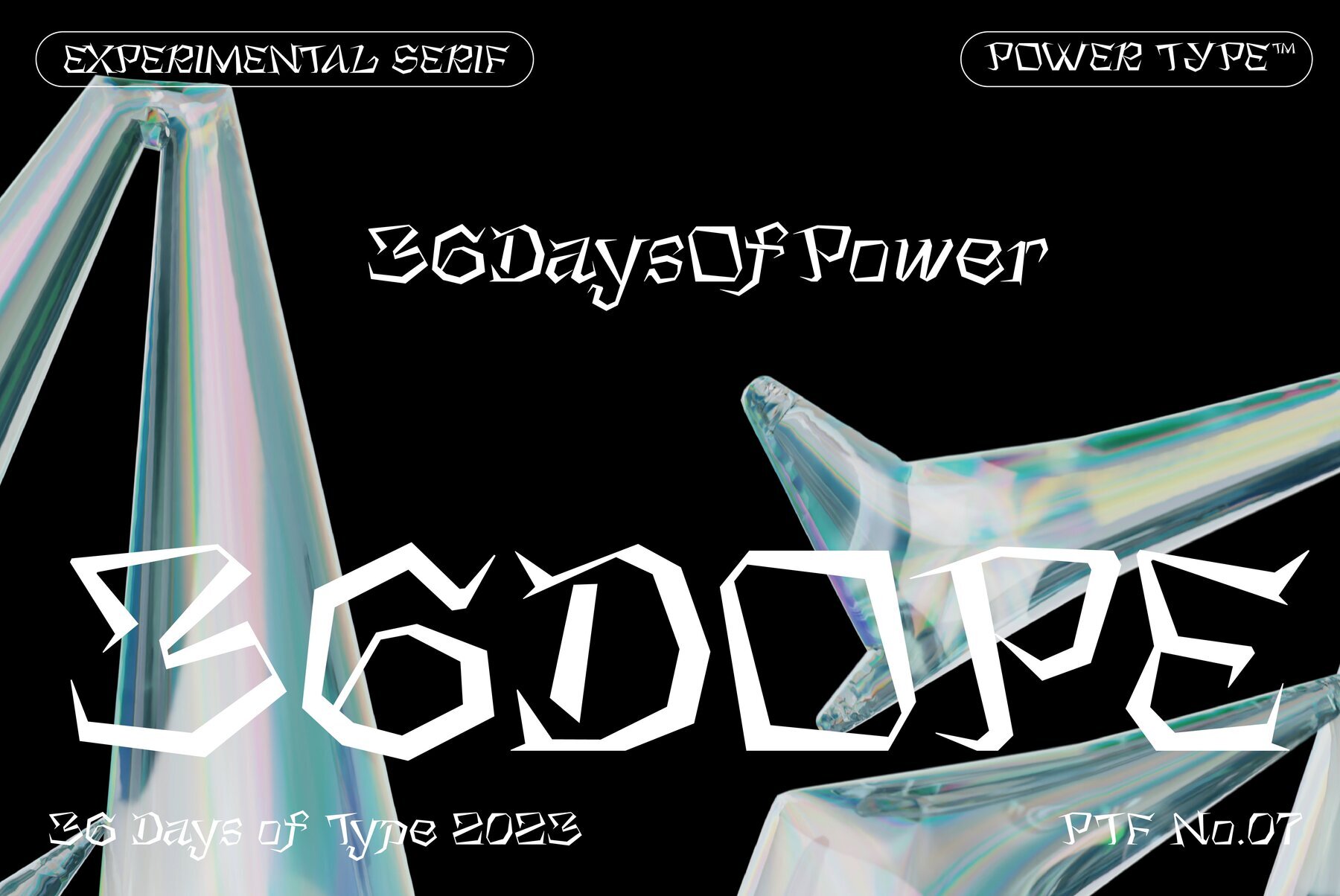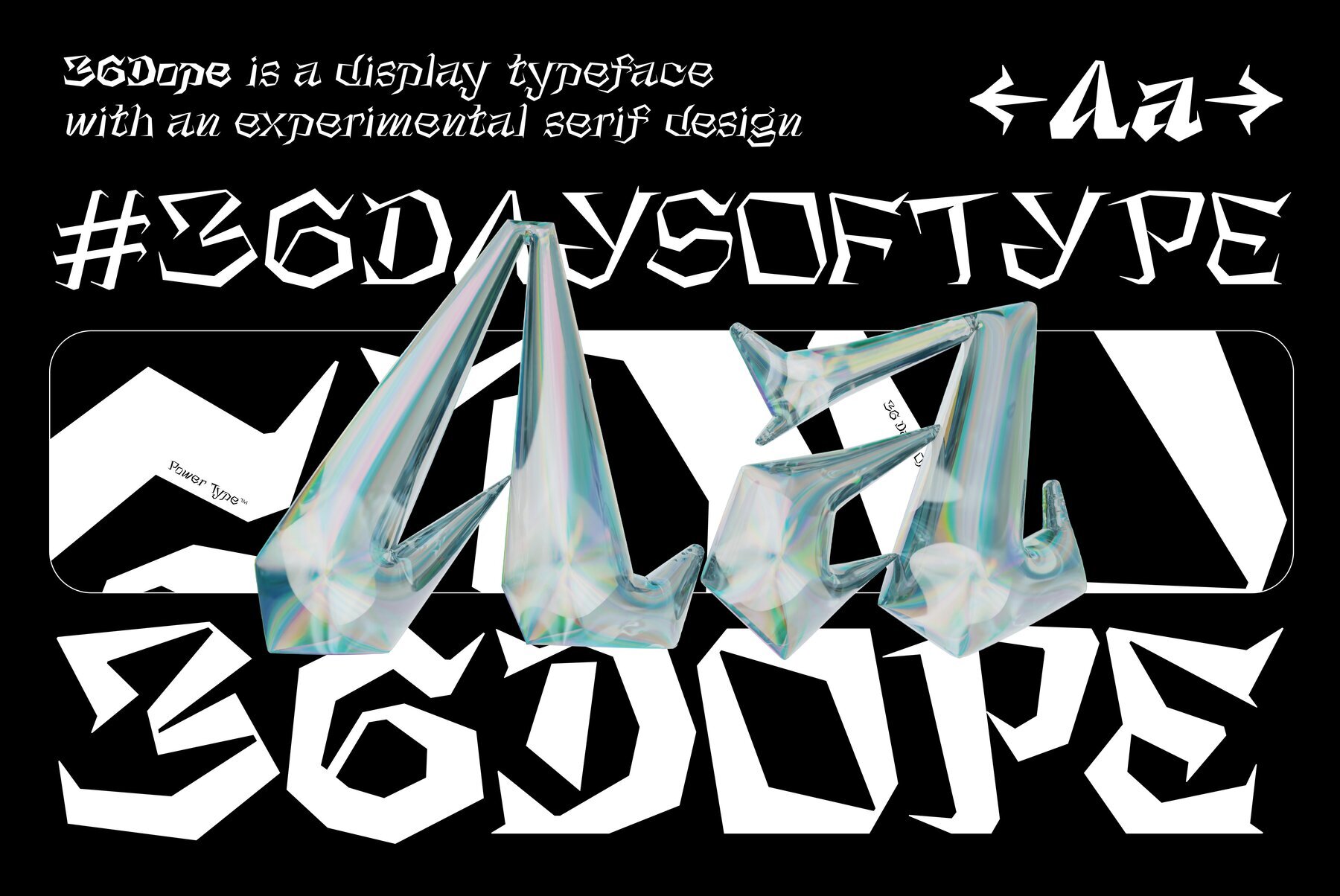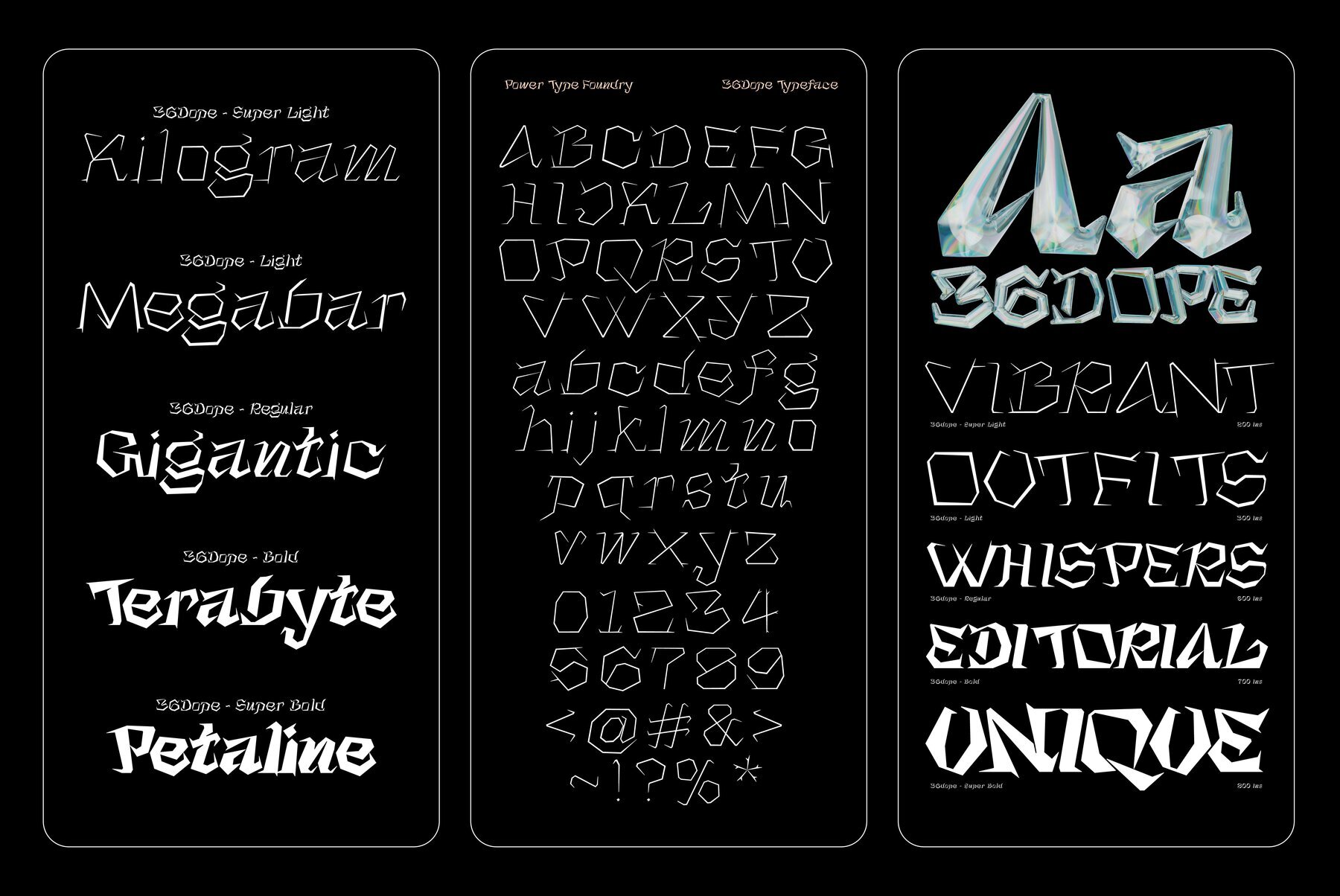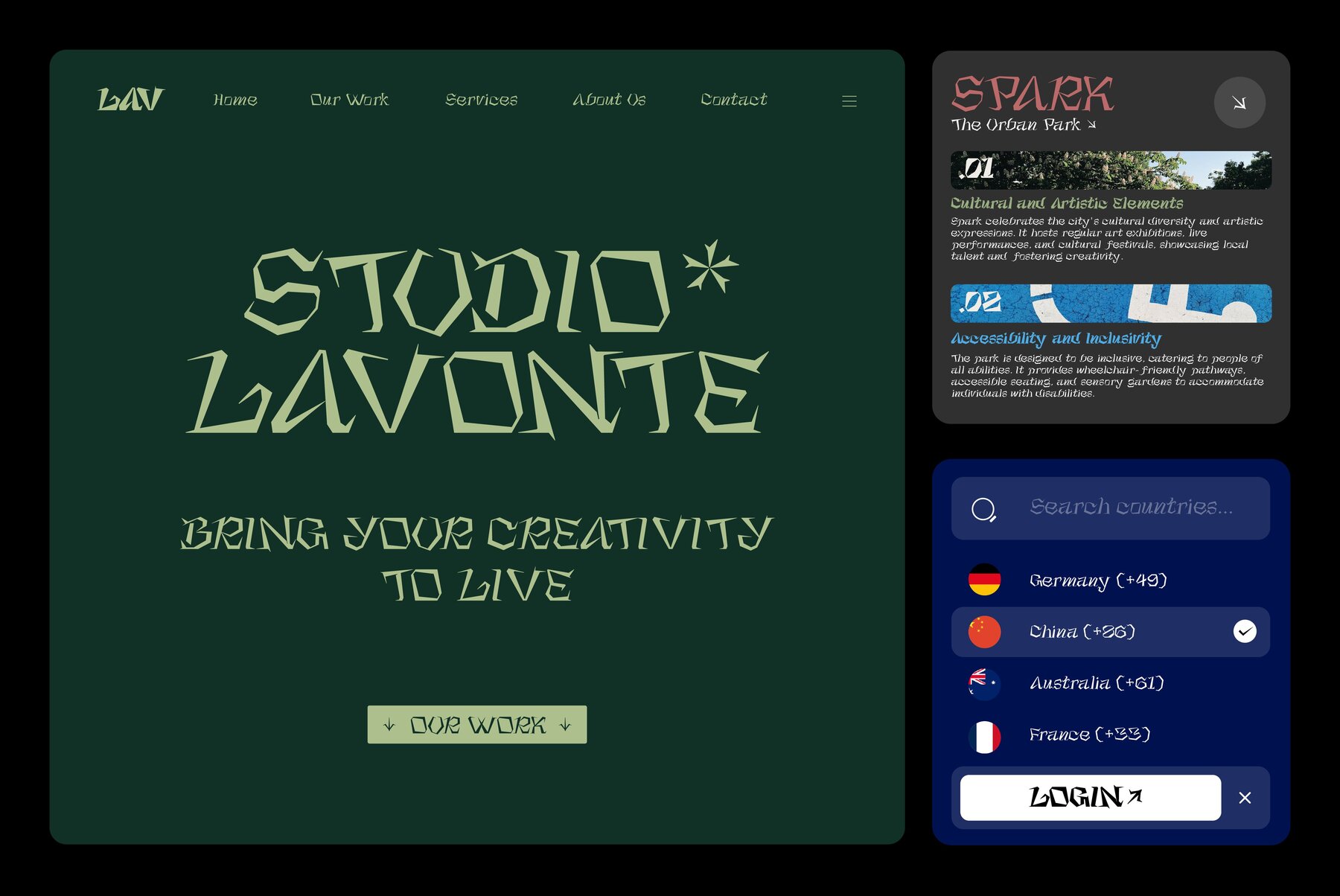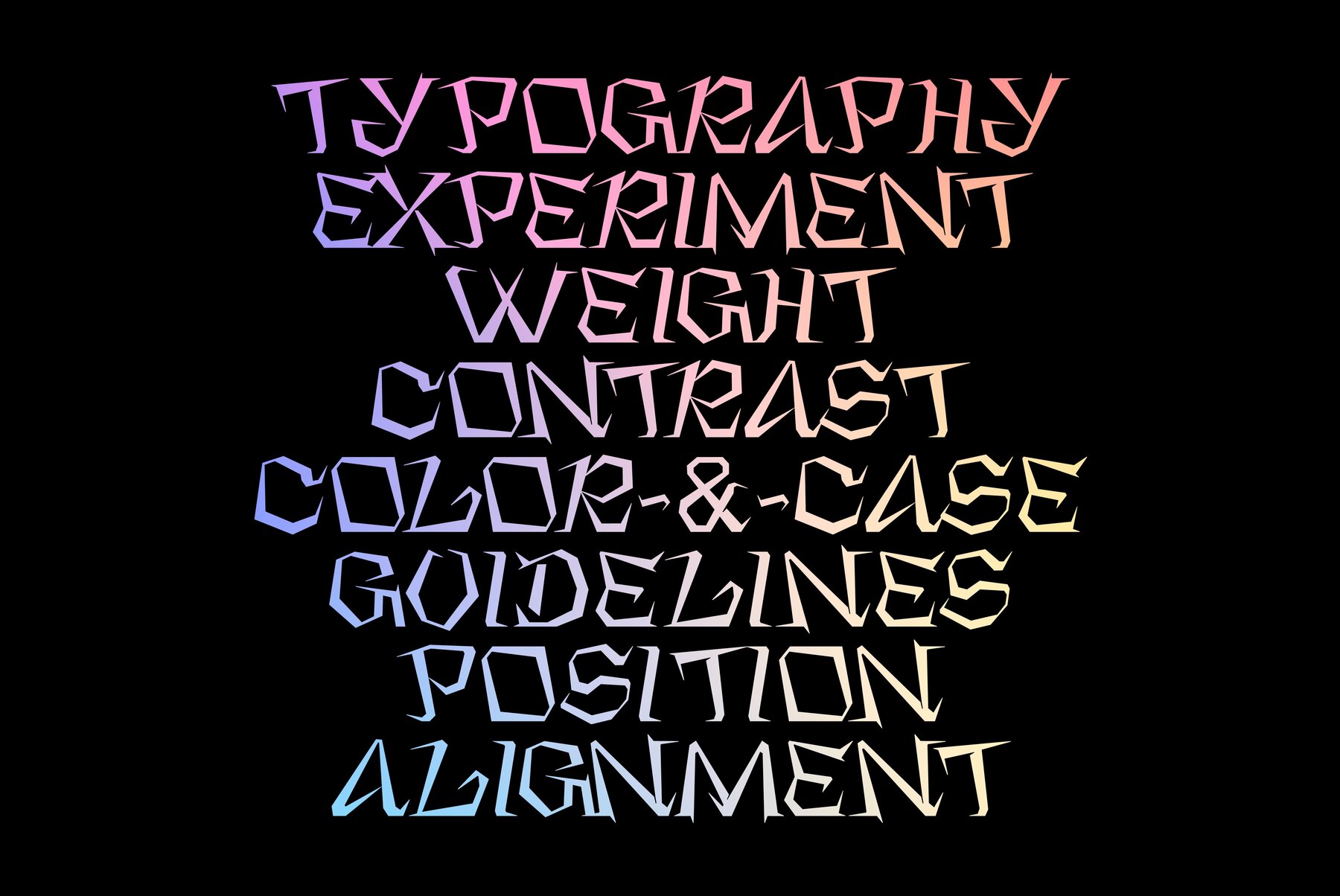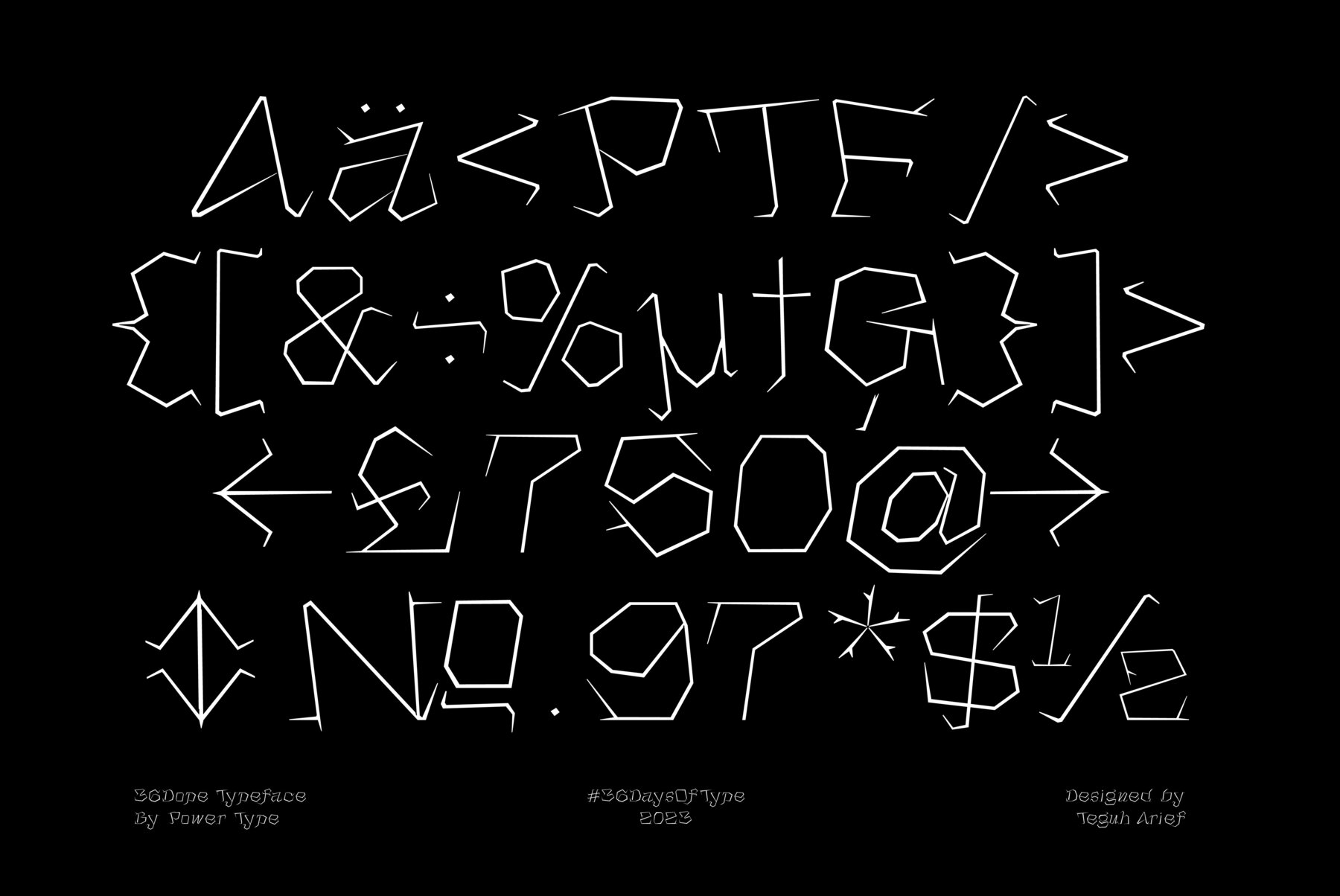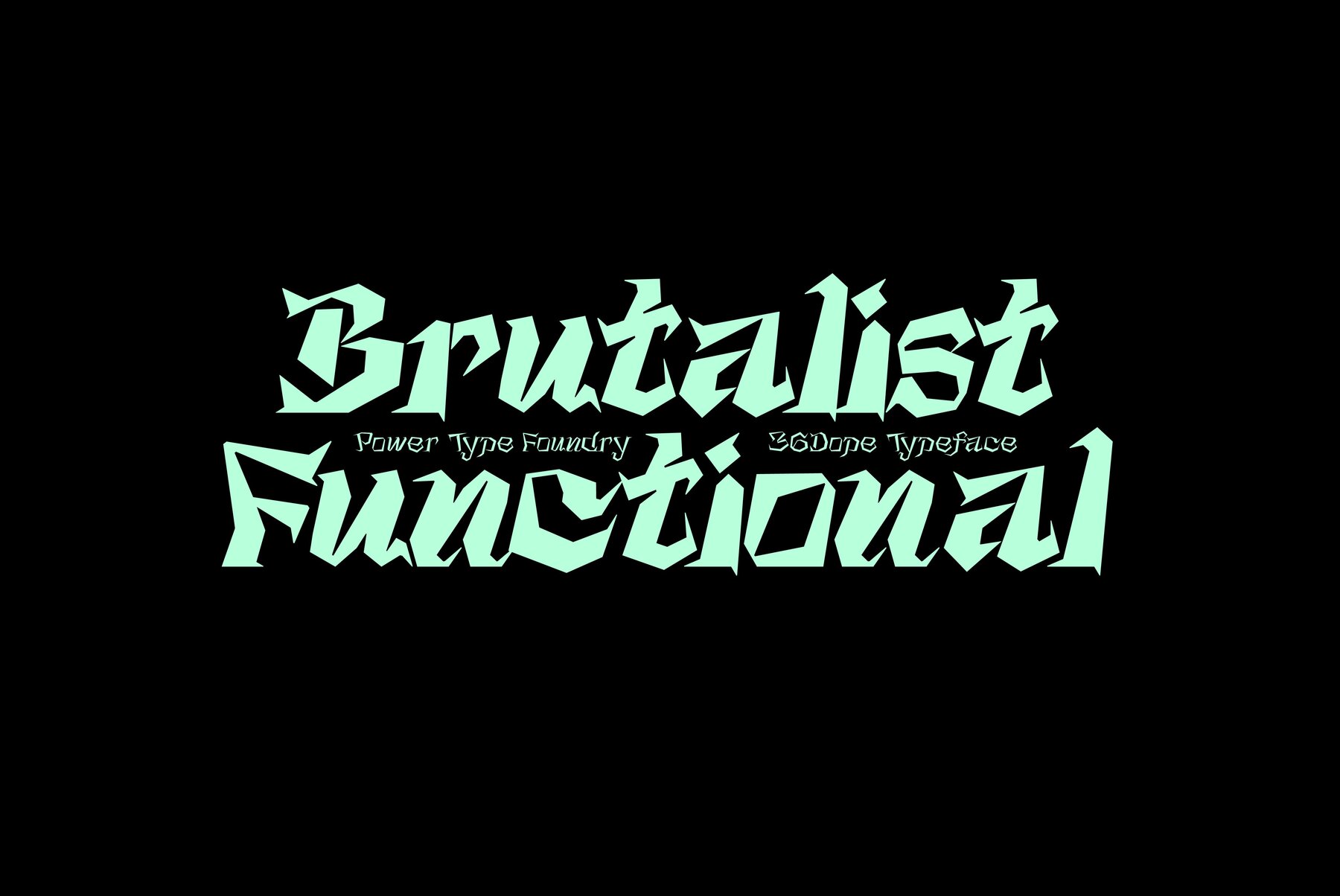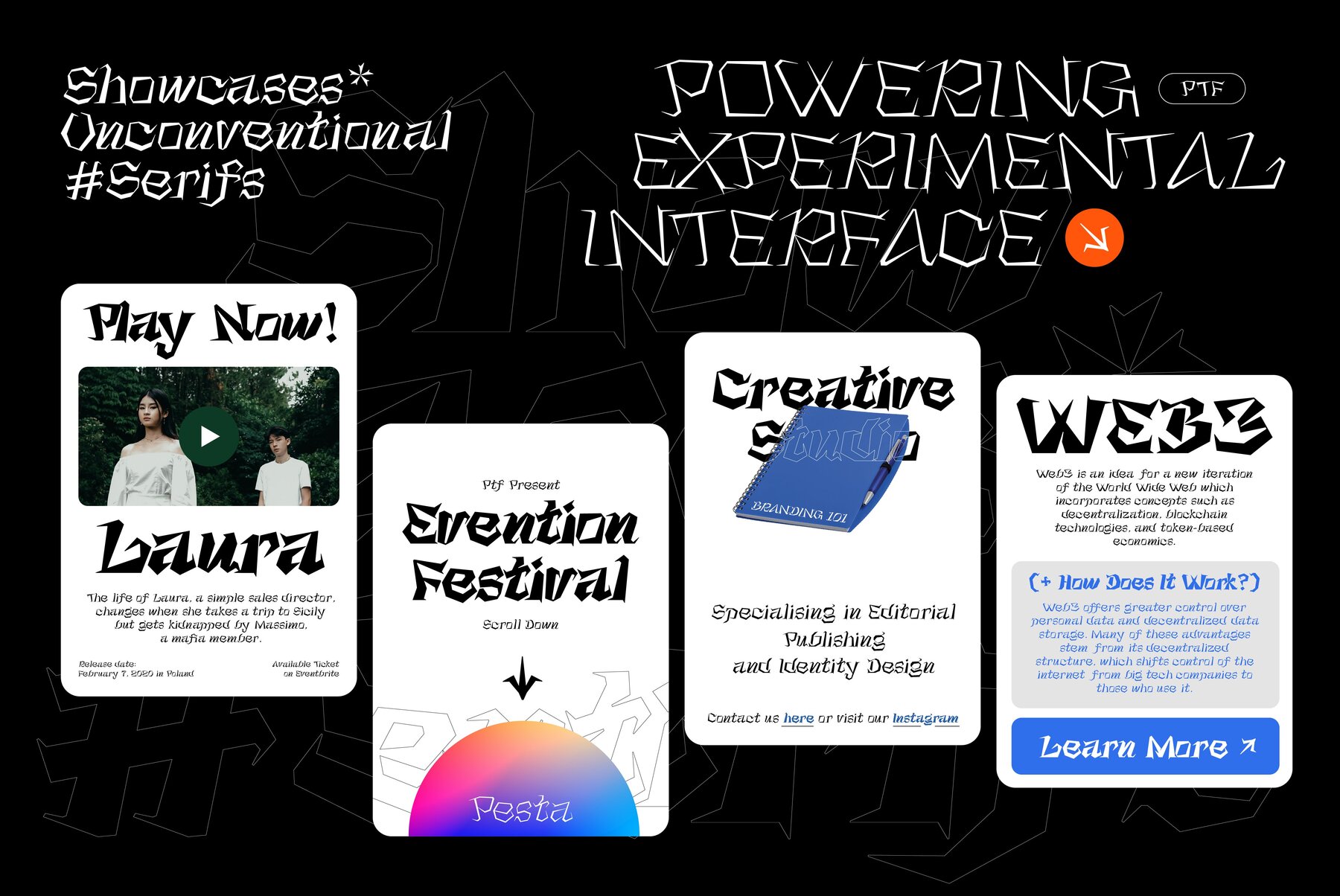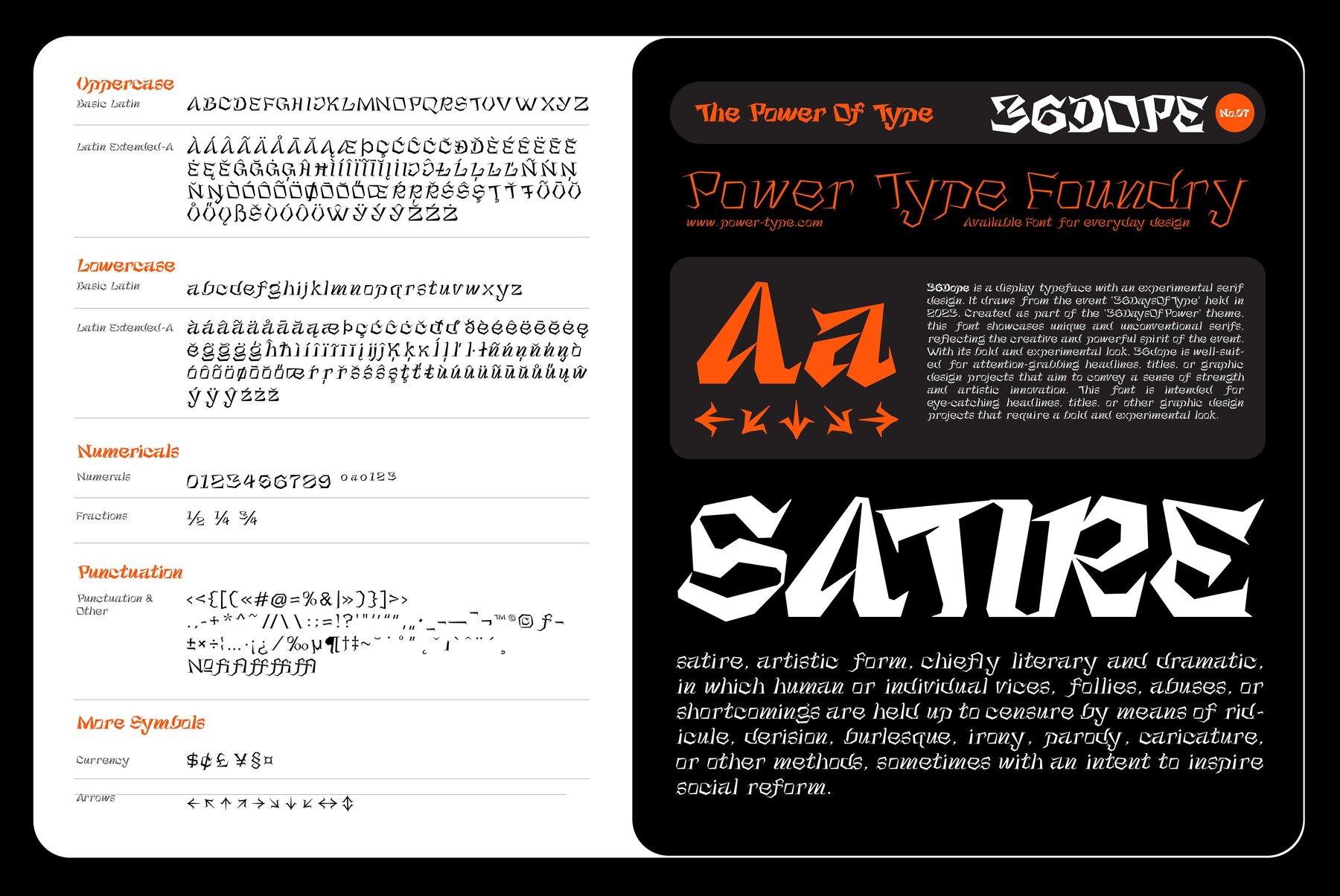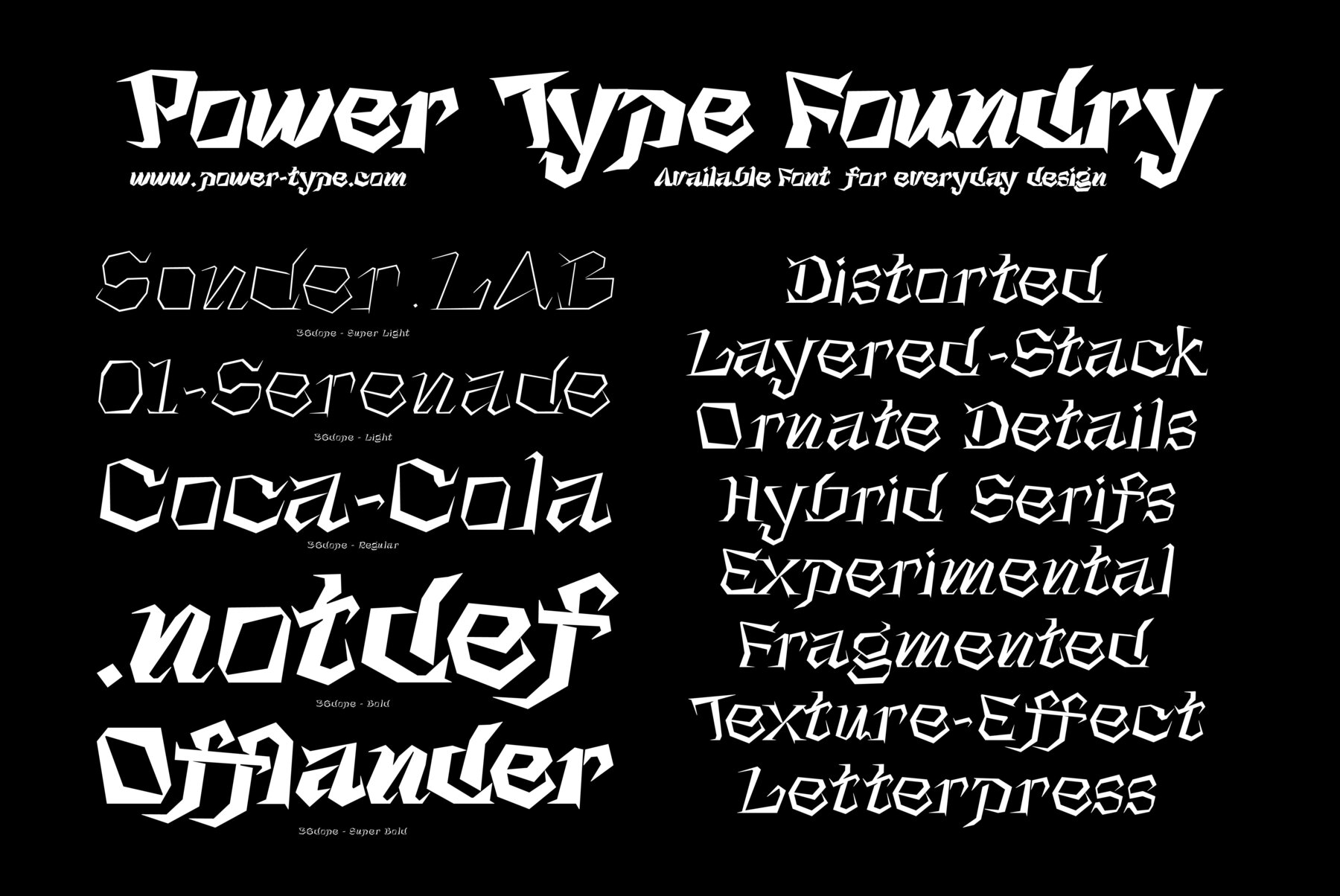
36Dope is a display typeface with an experimental serif design. It draws from the event '36DaysOfType' held in 2023. Created as part of the '36DaysOfPower' theme, this font showcases unique and unconventional serifs, reflecting the creative and powerful spirit of the event.
With its bold and experimental look, 36Dope is well-suited for attention-grabbing headlines, titles, or graphic design projects that aim to convey a sense of strength and artistic innovation. This font is intended for eye-catching headlines, titles, or other graphic design projects that require a bold and experimental look.